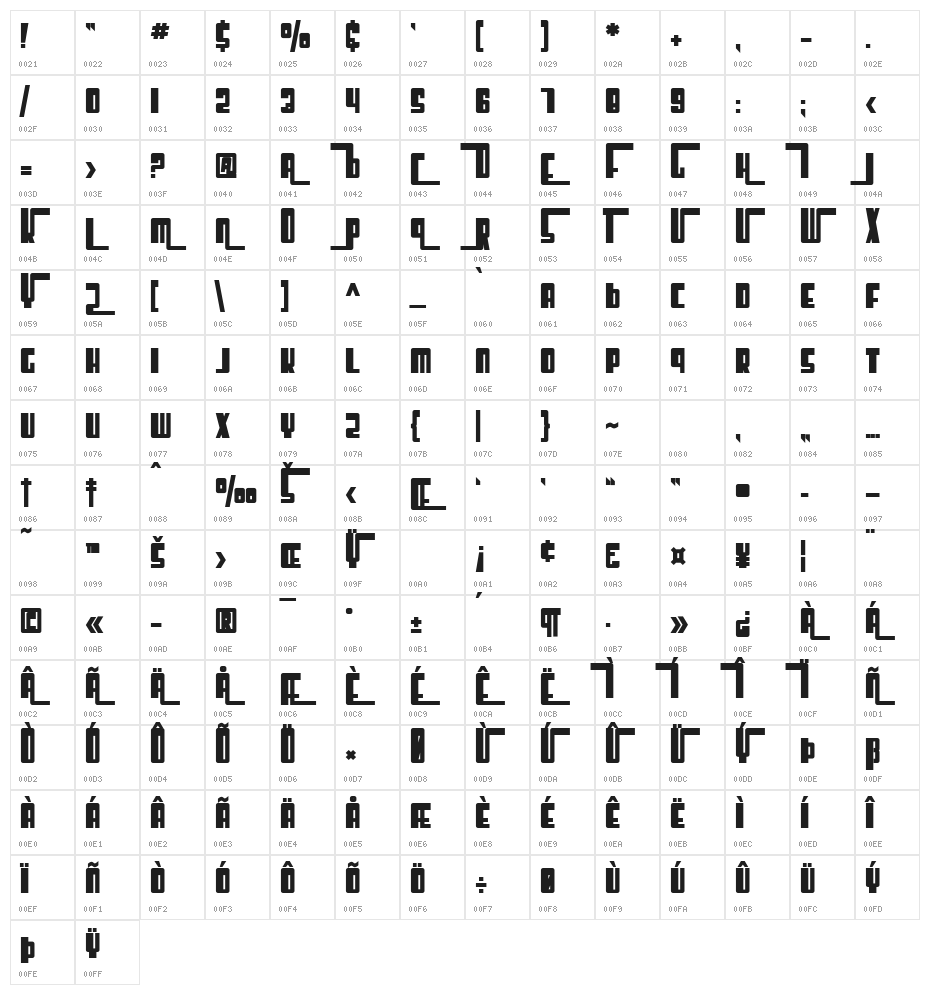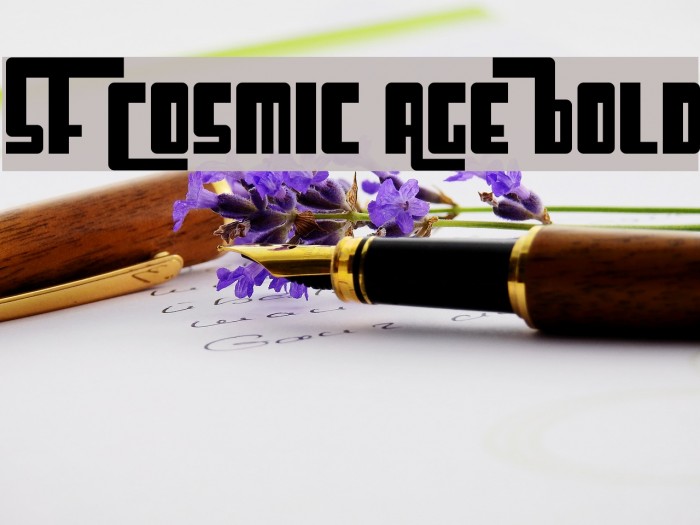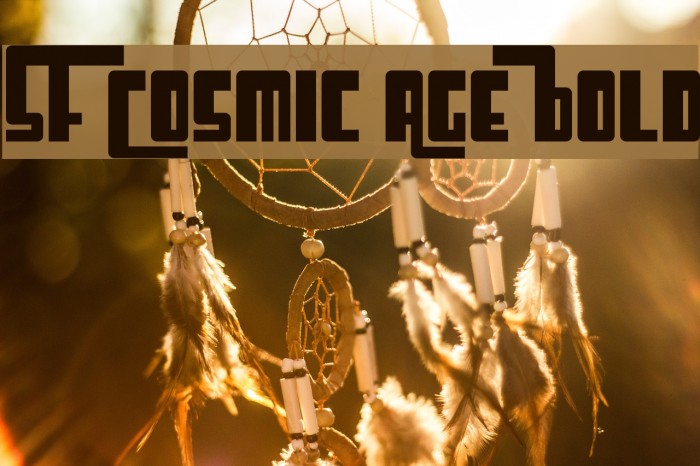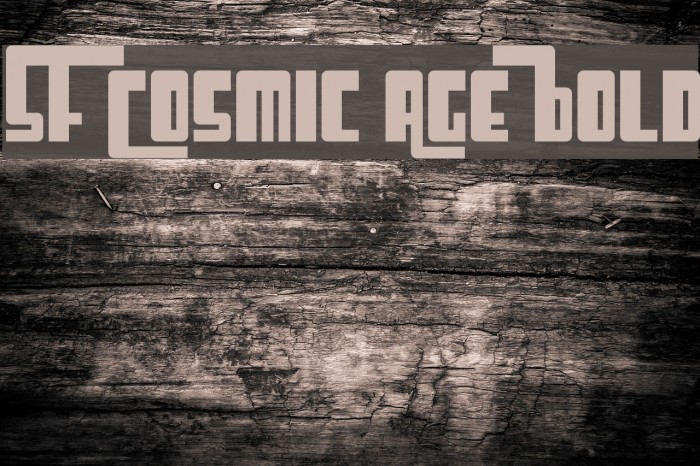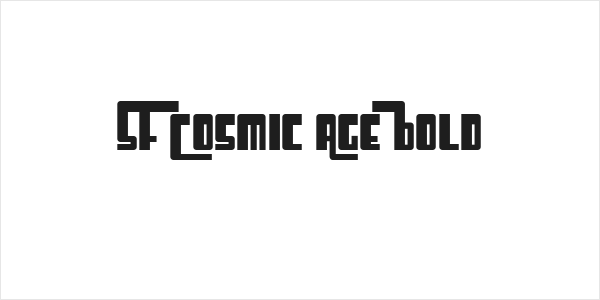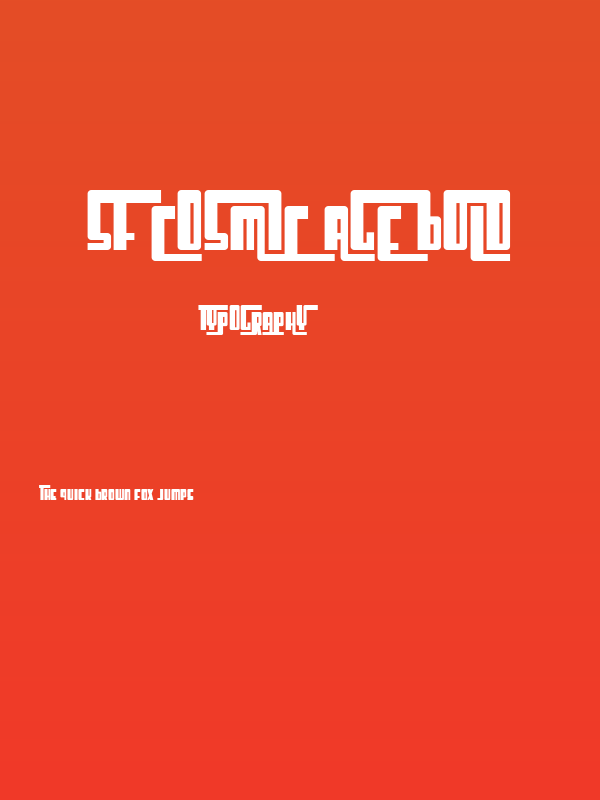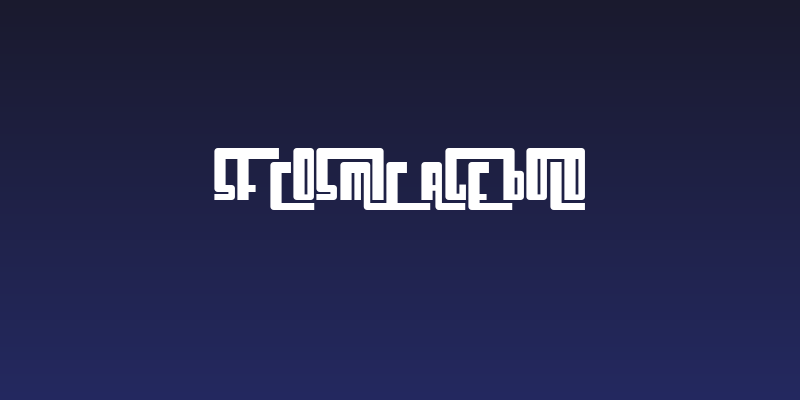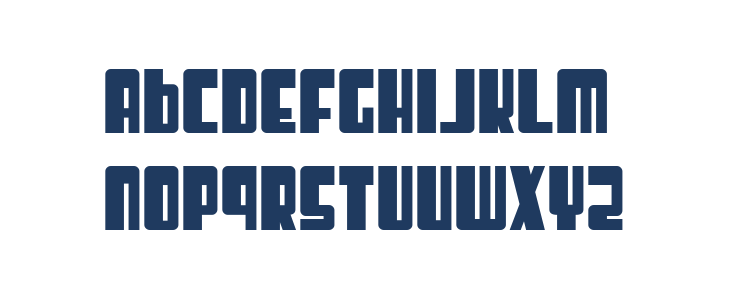
SF Cosmic Age Bold Font
SF Cosmic Age Bold Description
This font features a bold and futuristic design with a strong geometric structure. The characters are blocky and wide, giving a sense of stability and modernity. The uppercase and lowercase letters maintain a consistent style, with sharp angles and straight lines dominating the design. The numerals and special characters are equally bold, ensuring uniformity across all elements. This font's heavy weight and solid presence make it ideal for impactful designs where attention is key.
| Proposed Projects | Ideal for sci-fi themed posters, video game covers, technology branding, and futuristic event flyers. |